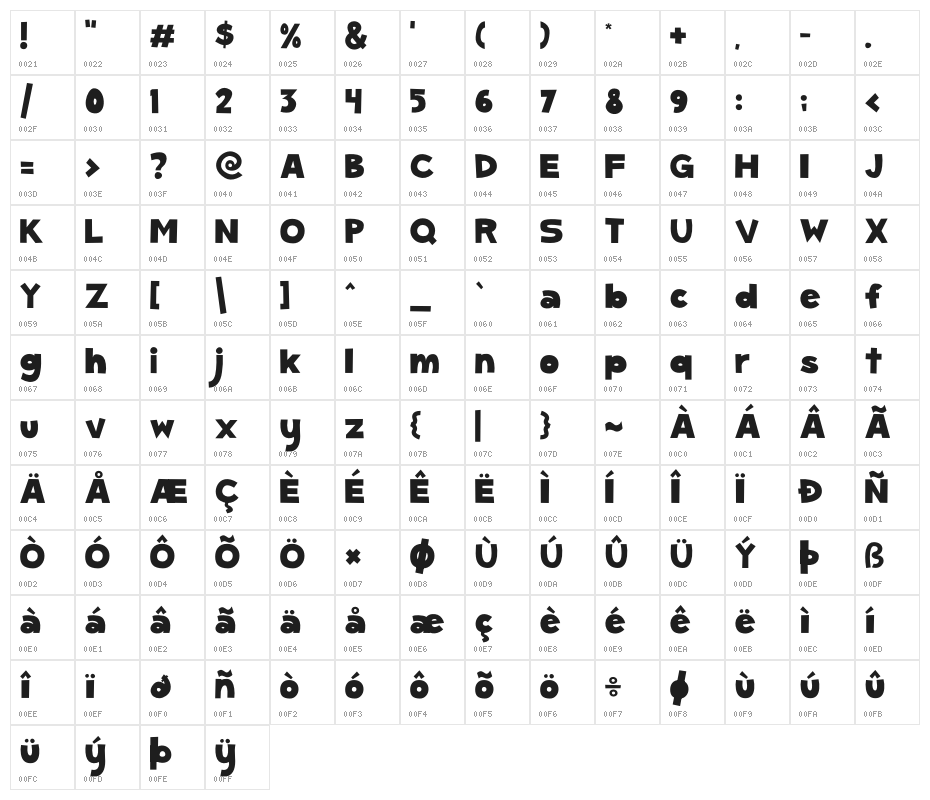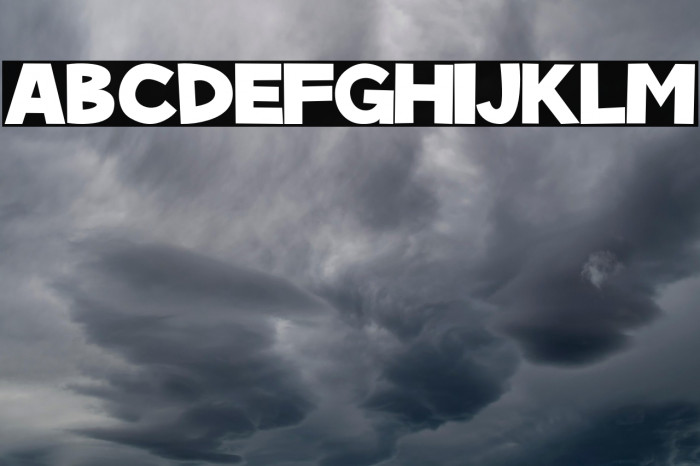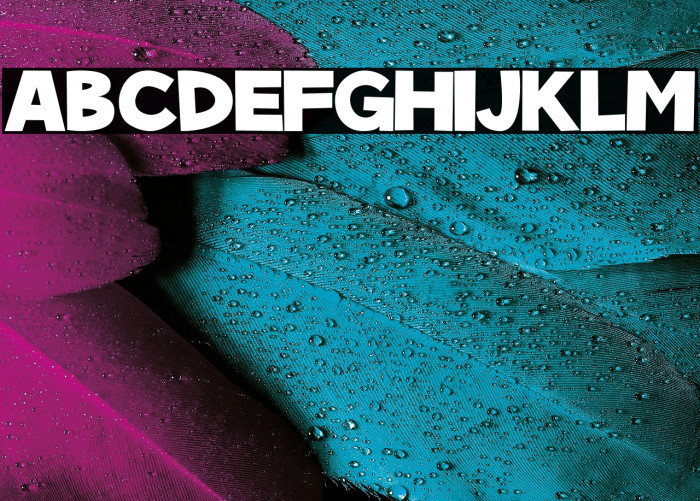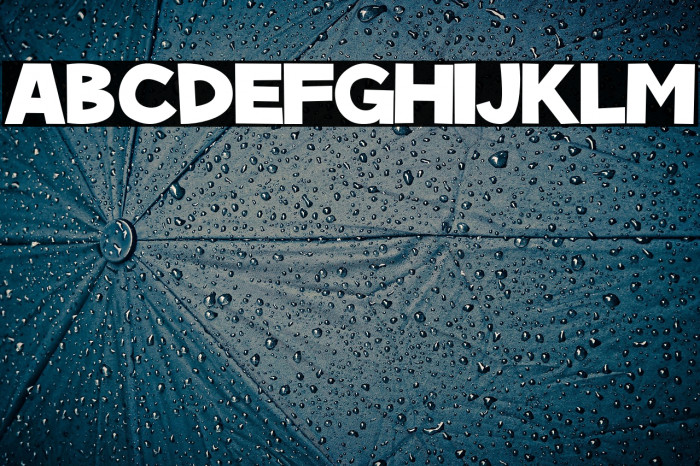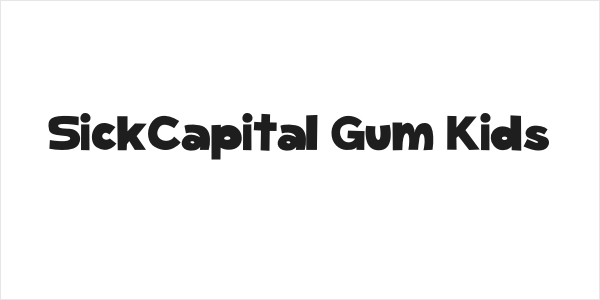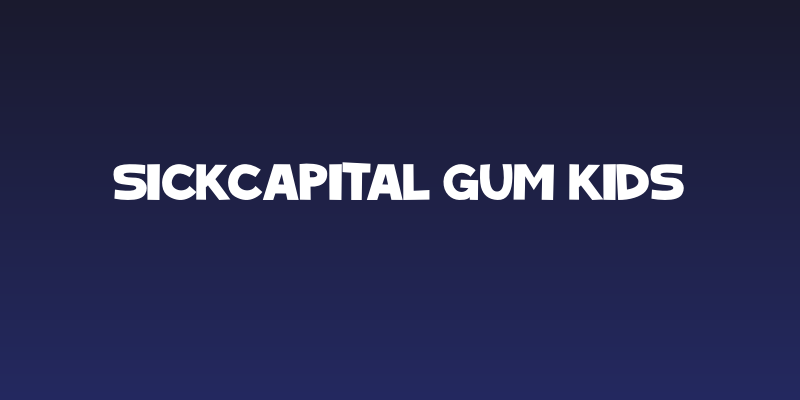
SickCapital Gum Kids Font
SickCapital Gum Kids Description
This playful and bold font features a chunky, rounded design that exudes a fun and energetic vibe. The letters are characterized by their thick strokes and slightly irregular shapes, giving them a hand-drawn appearance. The uppercase and lowercase letters maintain a consistent style, with the lowercase letters being slightly more compact. The numbers and special characters follow the same playful aesthetic, making them suitable for a variety of creative projects. The overall look is informal and friendly, perfect for capturing attention in a lively manner.
Overall StylePlayful, Fun
Proposed ProjectsIdeal for children's books, playful branding, party invitations, and comic-style graphics.